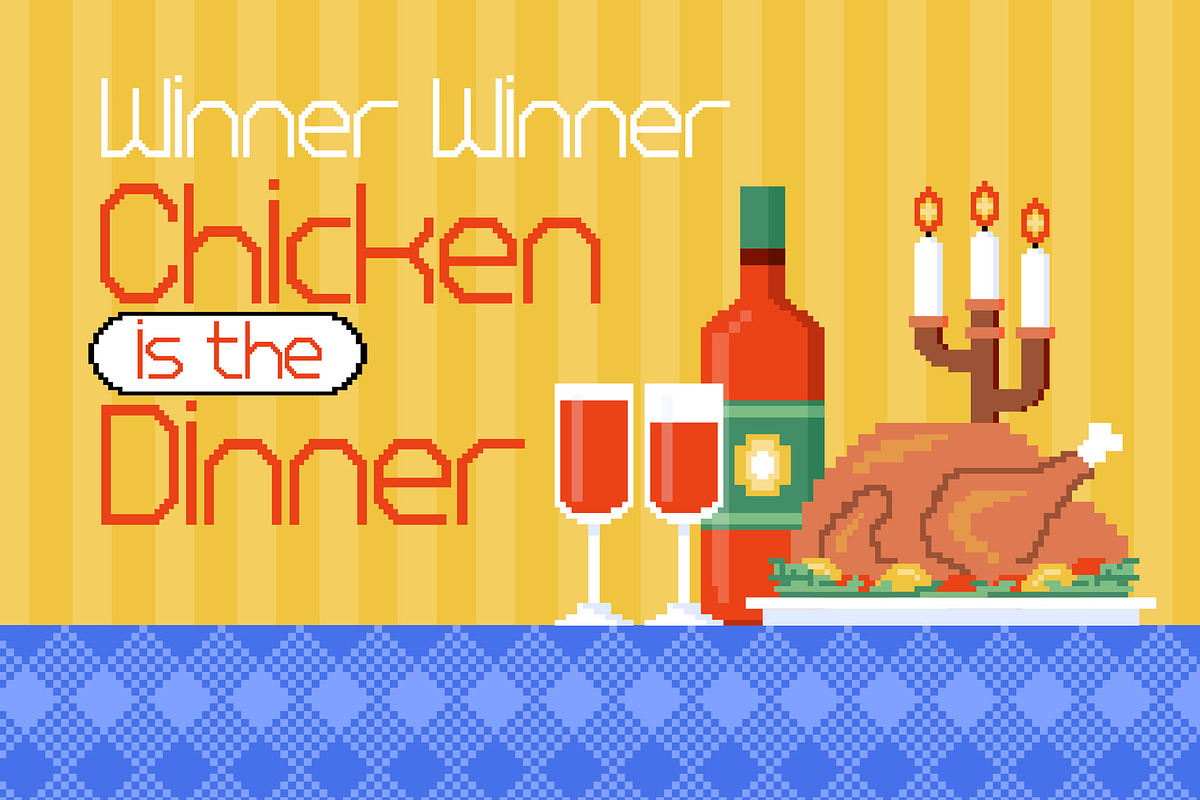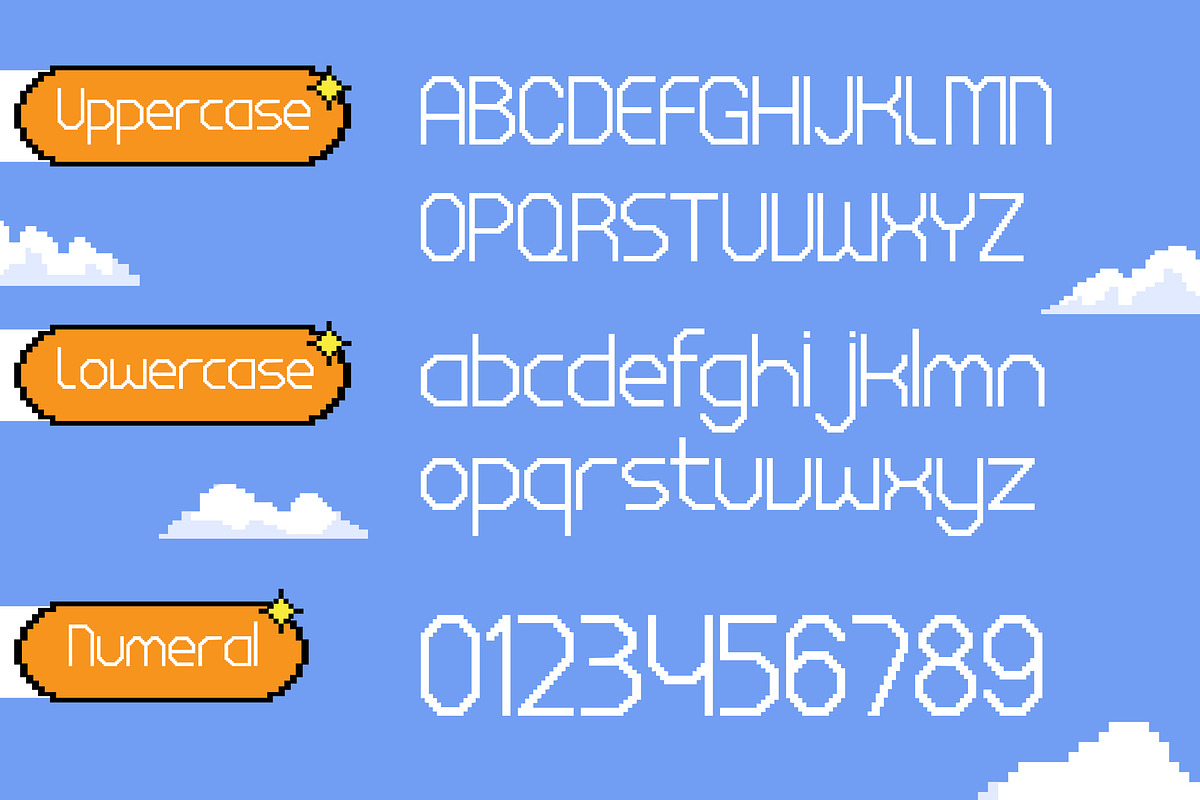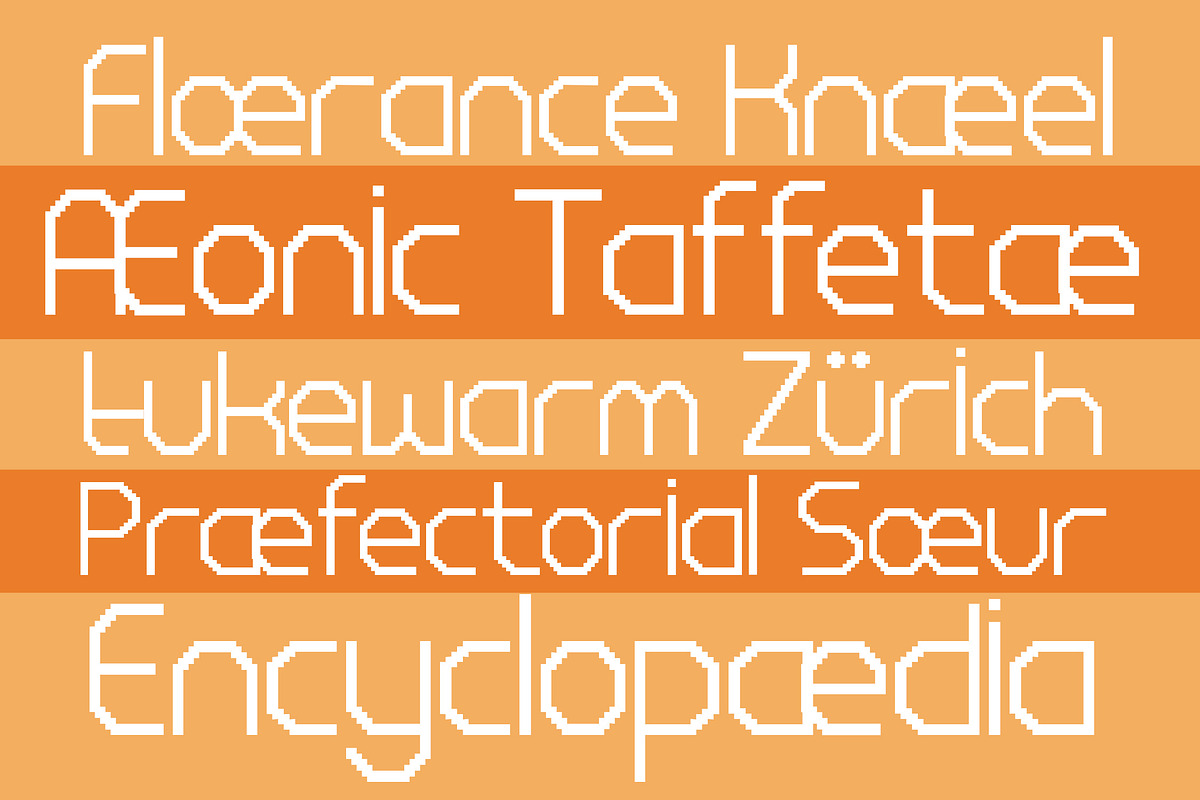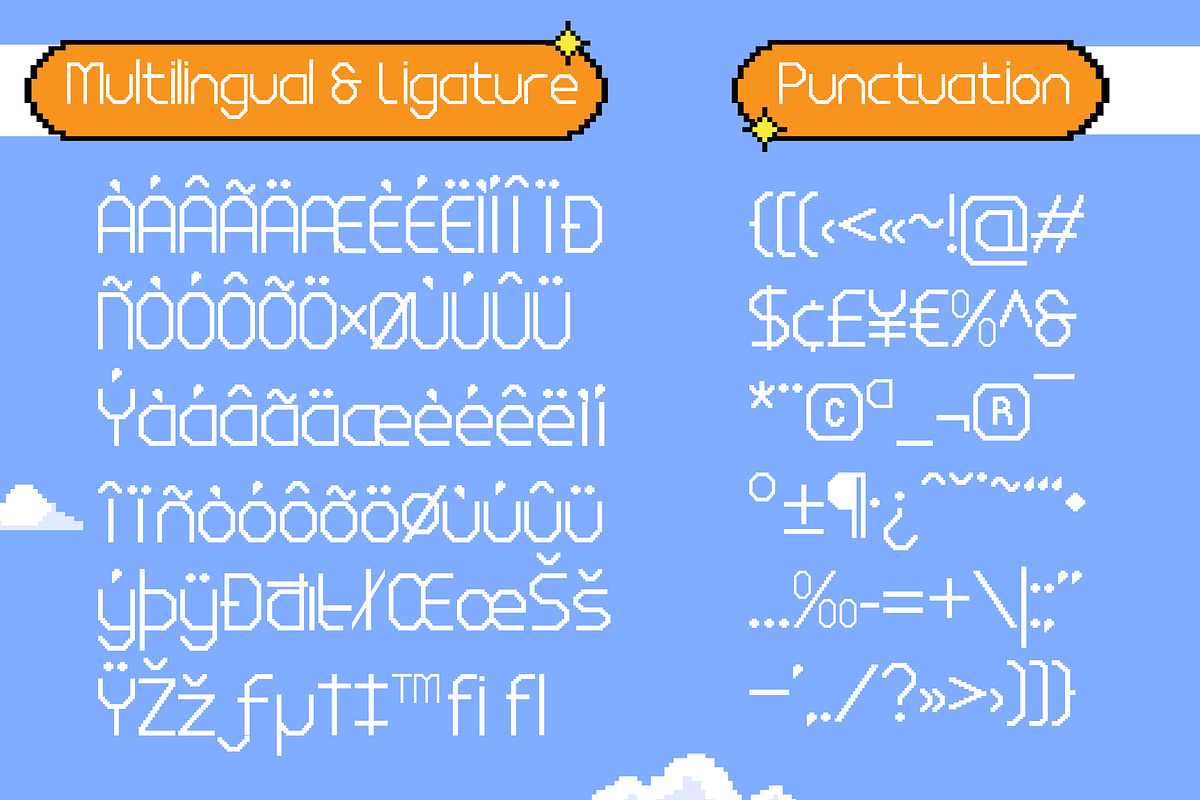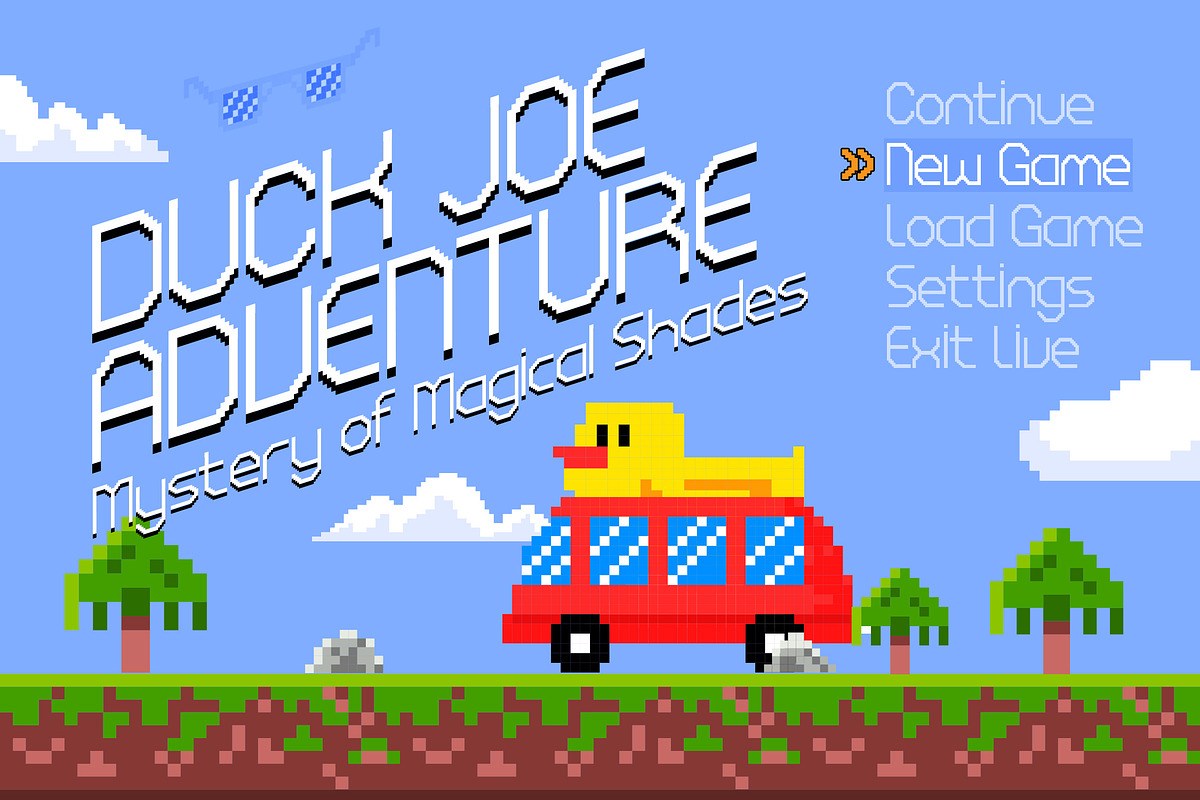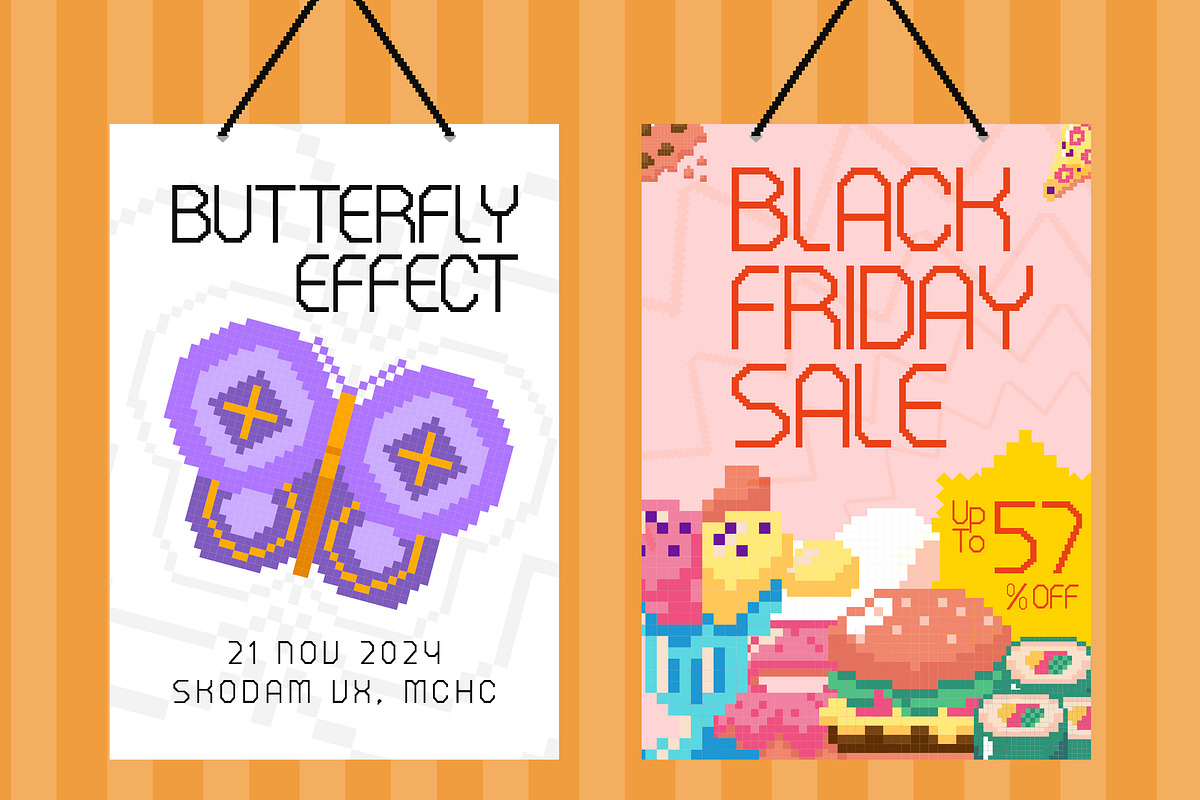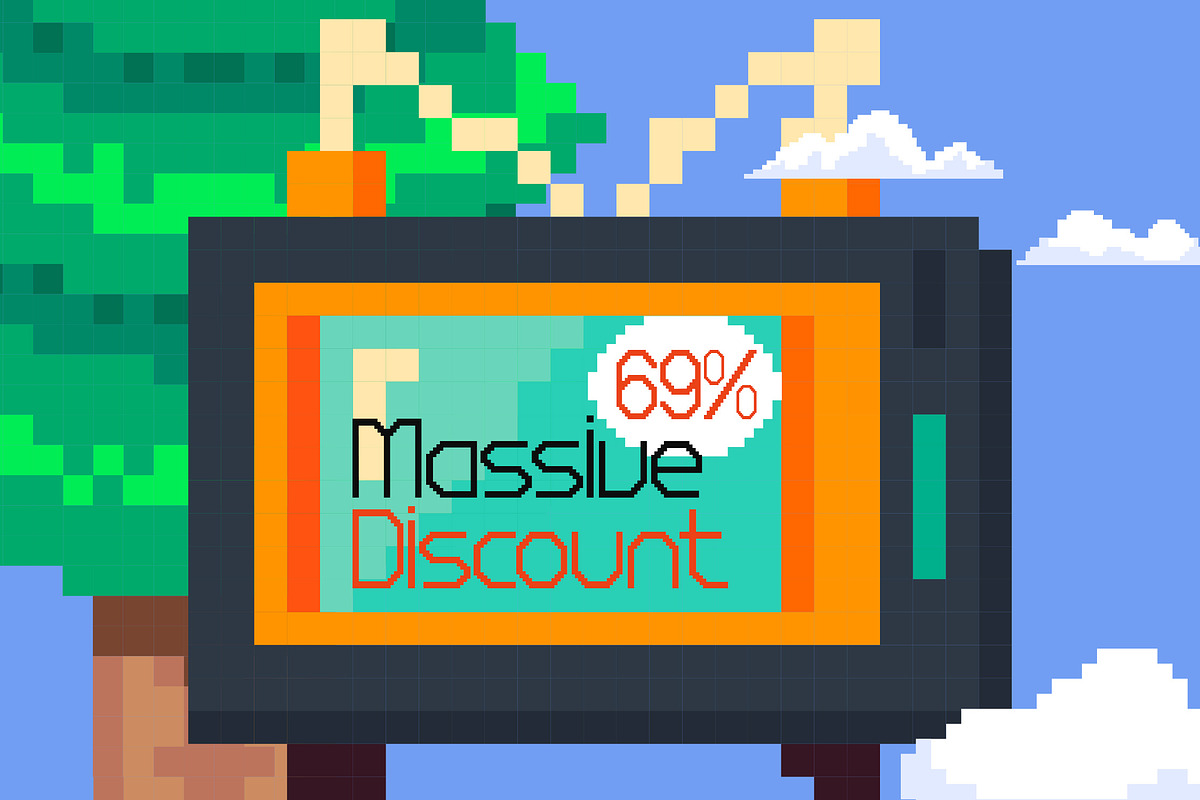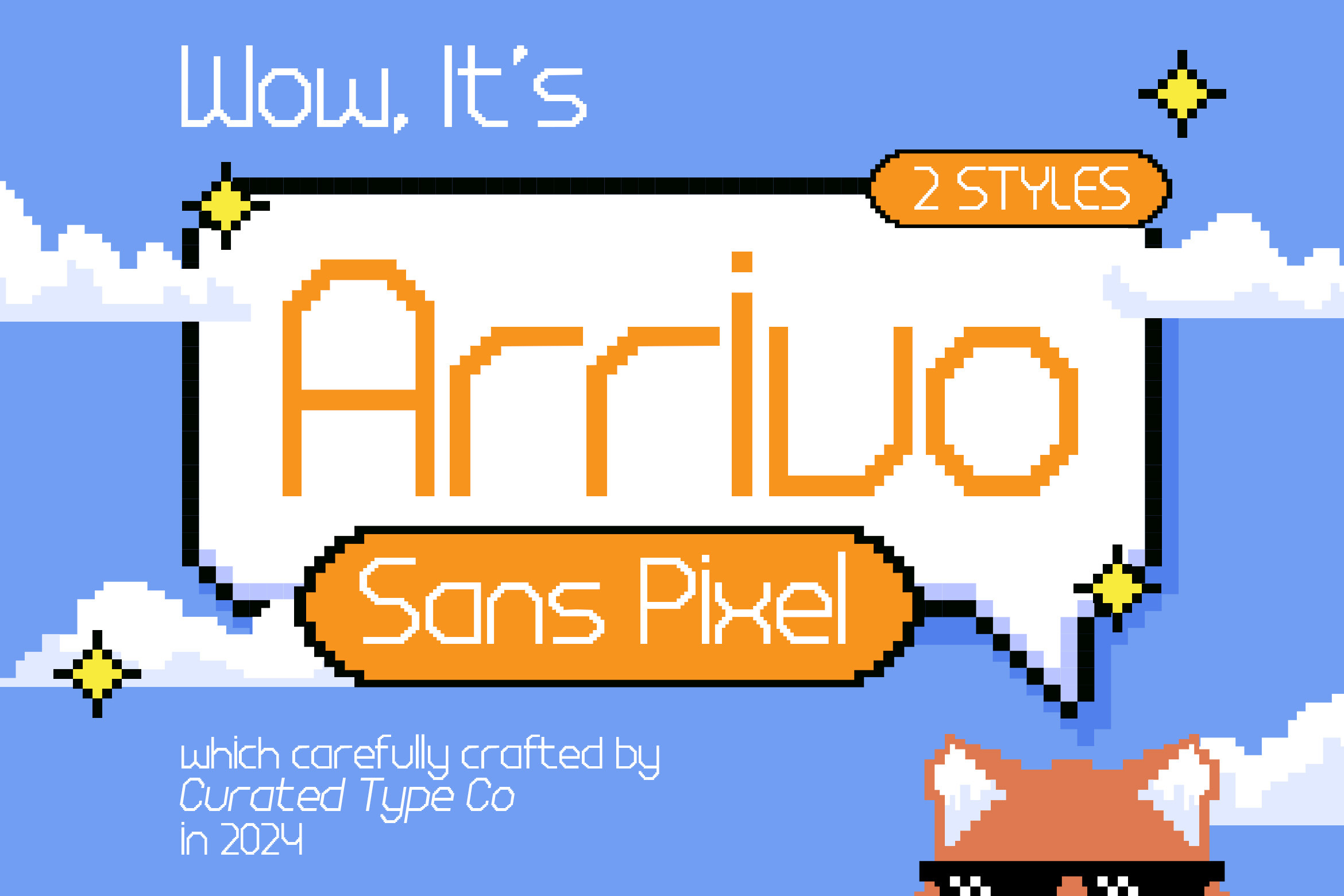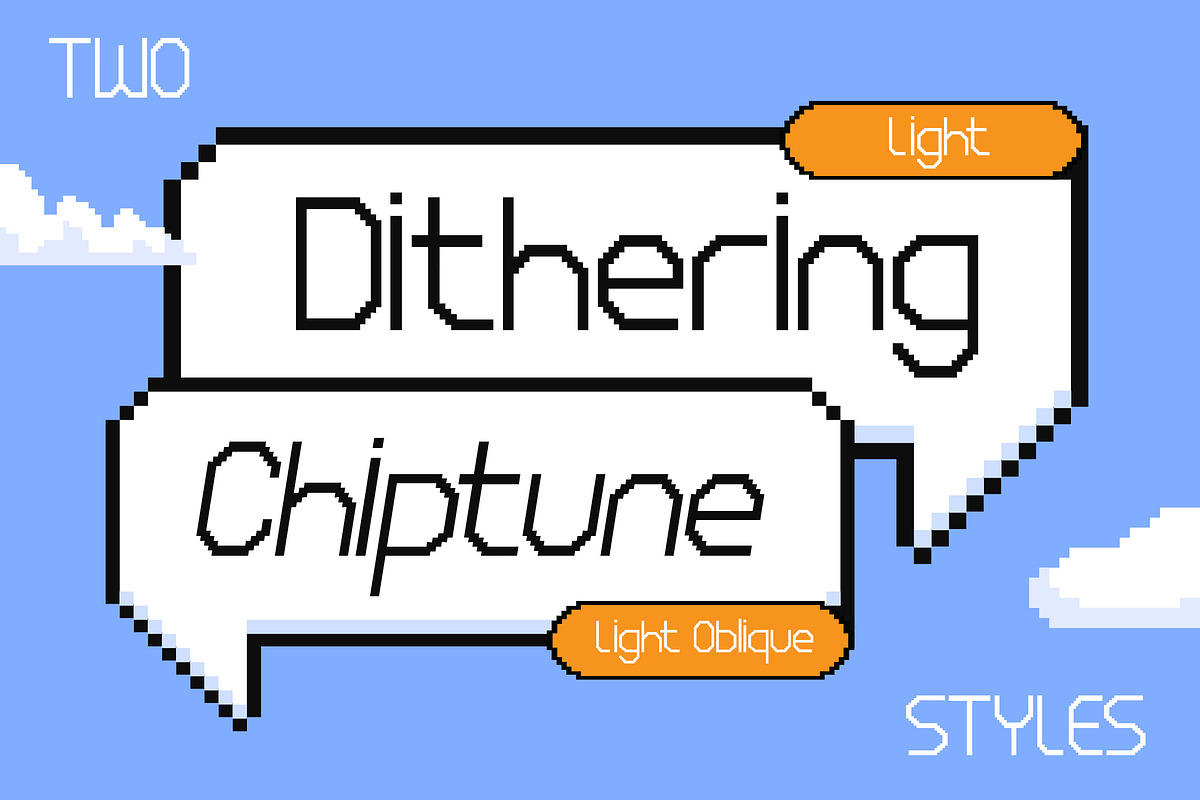
Arrivo Sans Pixel - 8Bit Font
Arrivo Sans Pixel is a modern sans-serif typeface that blends simplicity with a playful aesthetic. The font features rounded edges and a friendly character, making it suitable for both casual and professional projects. Its pixelated design evokes a nostalgic feel, reminiscent of retro video game graphics, which can add a fun and approachable touch to digital content.
The typeface includes both uppercase and lowercase letters, as well as numerals, punctuation, and ligature for Multilingual feature, offering versatility for various applications. Its unique style makes it ideal for branding, advertisements, and playful interfaces, ensuring that text stands out while maintaining readability. Arrivo Sans Pixel is perfect for anyone looking to inject a bit of whimsy into their designs.